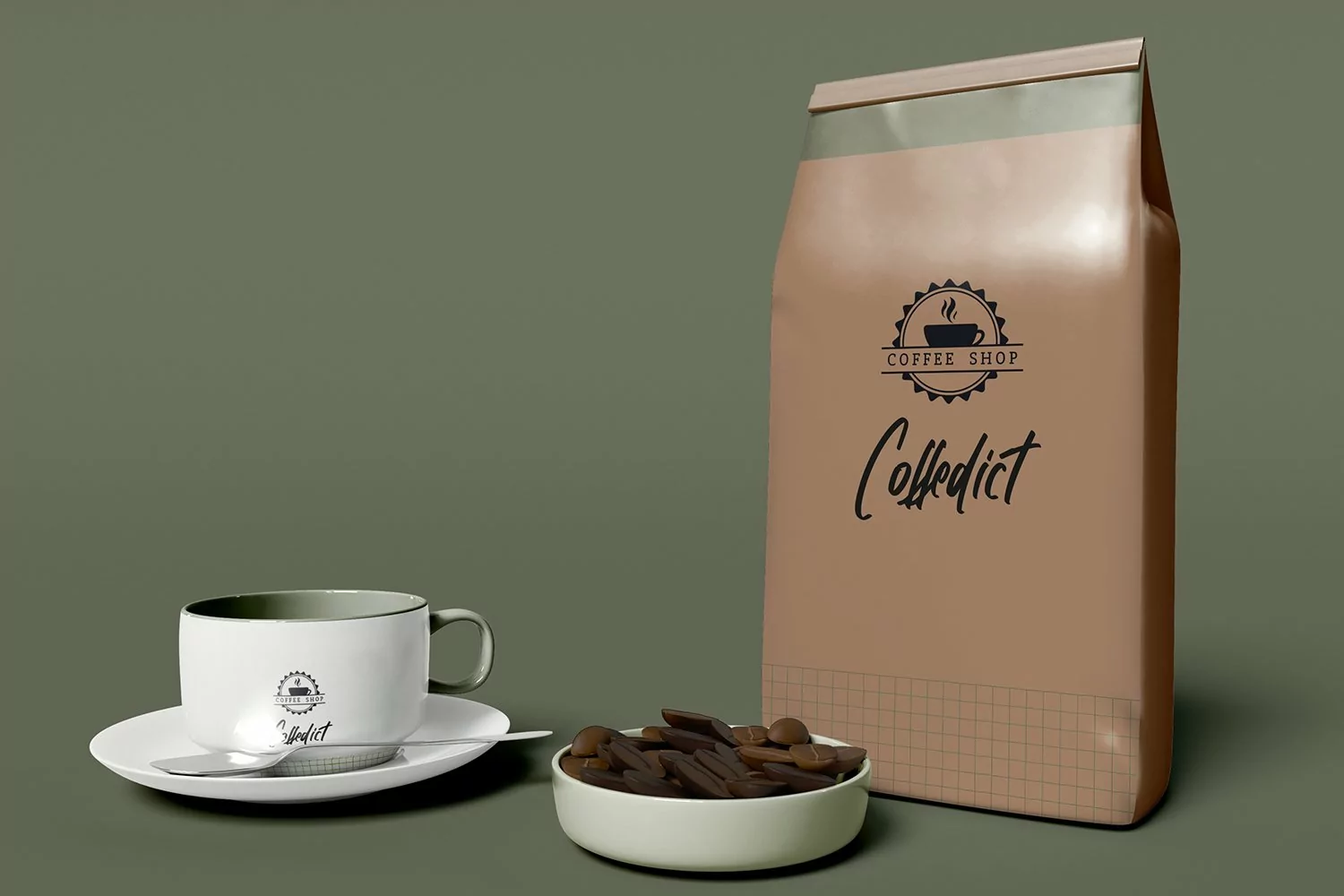
Hillside - Modern Handbrush Font
Hillside - Modern Handbrush Font that contain lowercase, uppercase, symbol, and also support multi language. There’s a lot ligatures in this font. This Font also comes with ligatures, alternates and many more. this font suitable for fashion, branding, catalog and other design what you want.